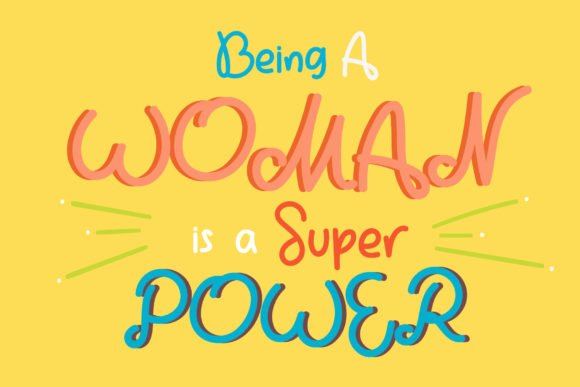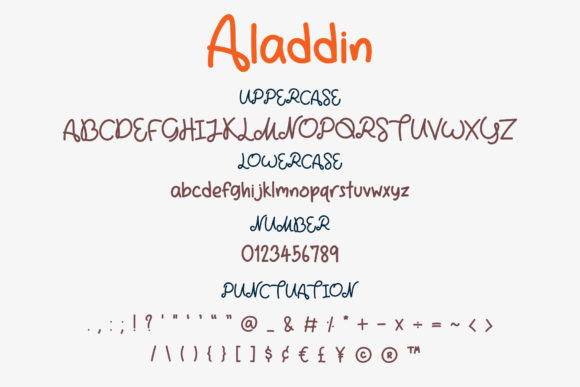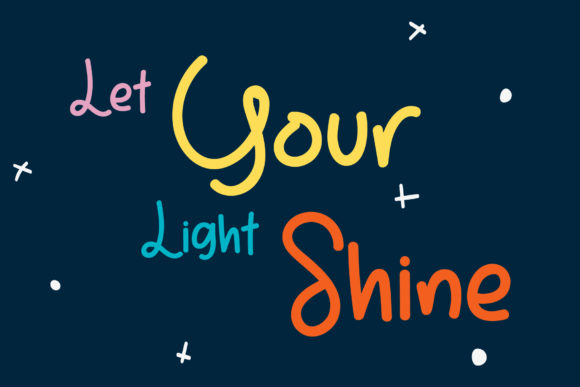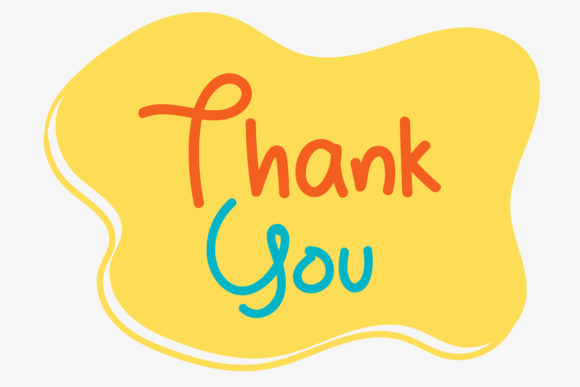
The Magic of Aladdin Font: Elevate Your Designs with this Stylish Handwritten Font
I’ll never forget the time I was working on a wedding invitation project, and my client asked for a font that was both elegant and playful. I scoured the internet, trying out font after font, but nothing seemed quite right. That was until I stumbled upon Aladdin Font. This cool and stylish handwritten font has since become a staple in my design toolkit, and I’m excited to share its magic with you! ✨
An Honest Review of Aladdin Font
So, what makes Aladdin Font so special? Let’s dive into the good stuff and a few quirks I’ve discovered.
- ✨ Versatility: Aladdin Font is incredibly versatile, making it perfect for a wide range of design projects, from branding and headings to wedding designs, invitations, signatures, logos, labels, and more!
- ✅ Elegant yet Playful: This font strikes the perfect balance between elegance and playfulness, making it ideal for designs that need a touch of sophistication and whimsy.
- 💫 High-Quality: Aladdin Font is a high-quality font that is well-crafted and attention-grabbing.
While Aladdin Font is an amazing font, there are a few things to keep in mind:
- ⚠️ Legibility at Small Sizes: Like many handwritten fonts, Aladdin Font can be a bit tricky to read at very small sizes. Make sure to test it out at different sizes to ensure it’s legible for your specific project.
- 🤔 Overuse of Swashes: While Aladdin Font comes with beautiful swashes and stylistic alternates, be careful not to overuse them. Too many swashes can make your design look cluttered and overwhelming.
The Backstory of Aladdin Font
While the origins of Aladdin Font are shrouded in mystery, it’s clear that this font was designed with love and care. The creator of Aladdin Font was likely inspired by the magic of handwritten fonts and the world of design. Whether or not the font was inspired by the classic Disney tale, Aladdin Font is sure to bring a touch of magic to your designs!
| Font Name | Aladdin Font |
| Author | Wanida Toffy |
Q: What is Aladdin Font?
A: Aladdin Font is a cool and stylish handwritten font perfect for a wide range of design projects.